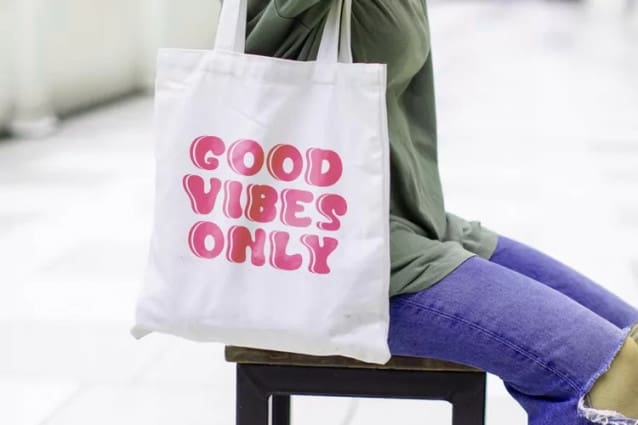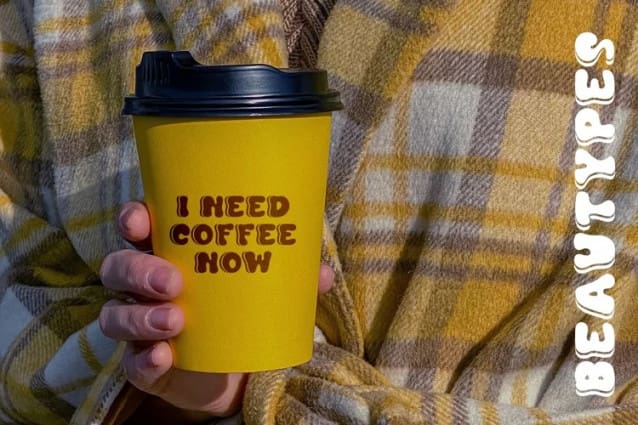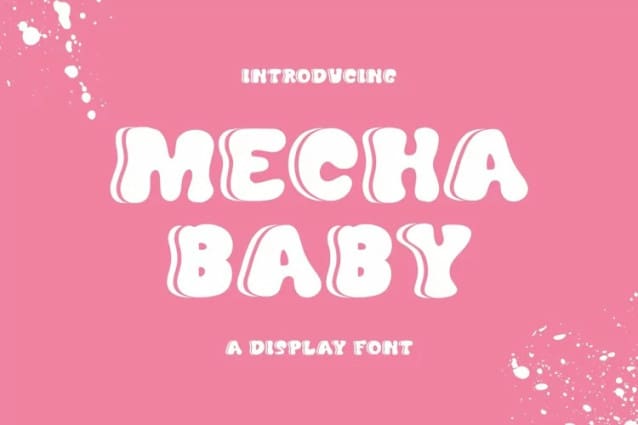
Mecha Baby Font
Mecha Baby Font is a trendy display font that is perfect for social media or crafty projects. Use for branding, crafts for decor, invitations, and more!